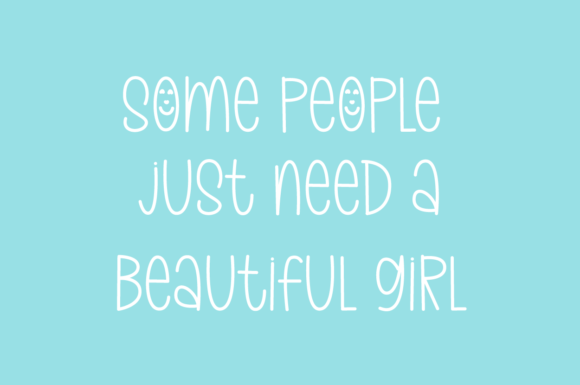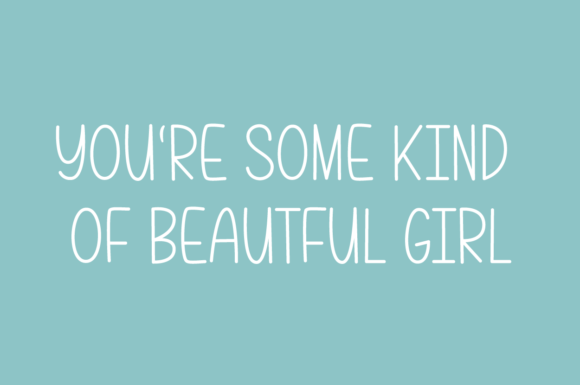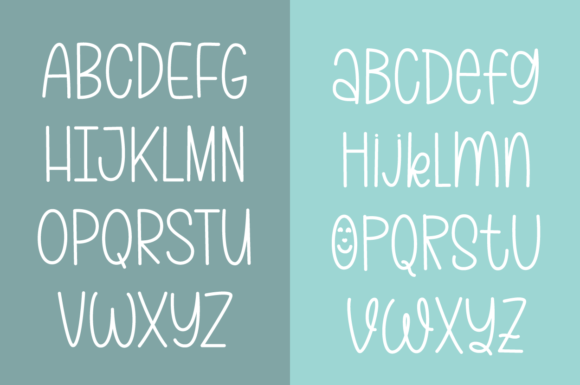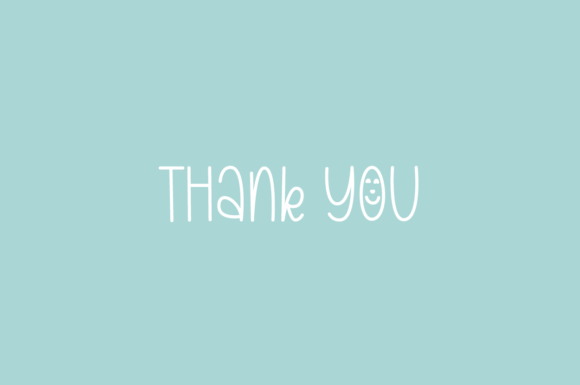
Deck the Halls with Type: Introducing the Free Holiday Font
You’re brainstorming ideas for your holiday campaign, and suddenly, a spark of creativity strikes. You envision a whimsical winter wonderland, filled with festive graphics and cheerful typography. But, what’s missing is the perfect font to bring your vision to life.
Enter the Free Holiday Font, a delightful sans serif font designed to add a touch of playfulness to your designs. Its thin letters dance across the page, creating a sense of movement and energy that’s perfect for the holiday season. This free font is a valuable asset for designers looking to add a personal touch to their projects, and its versatility makes it suitable for a wide range of applications, from social media graphics to holiday cards and invitations.
Key Features of Free Holiday Font
- Unique Characteristics: The font features a festive and playful design, with intricate details and ornaments that evoke a holiday spirit.
- Language Support: The font supports a wide range of languages, including Latin, Cyrillic, and Greek alphabets, making it suitable for international designs.
Free Holiday Font Review
Overall, I think the Free Holiday Font is a fun and festive addition to any project. It’s perfect for creating a cheerful and inviting atmosphere during the holiday season. ✨ Here are some things that work well:
- The design is playful and whimsical, making it perfect for holiday-themed projects.
- The font includes a variety of styles, including bold and italic options, to add some extra flair to your designs.
However, there are some limitations to keep in mind:
- The font may not be suitable for formal or professional projects, as it can come across as a bit too playful.
- The font may not be as versatile as some other holiday fonts on the market, as it’s specifically designed for the holiday season.
- The font may not include as many ligatures or special characters as some other fonts, which can make it a bit more difficult to use in certain situations.
- ⚠️ Be aware that some users have reported issues with the font’s legibility at smaller font sizes.
Overall, I think the Free Holiday Font is a great choice for designers who want to add a fun and festive touch to their holiday projects. While it may have some limitations, it’s a great value for the price (which is free!) and can be a lot of fun to use.
Getting the Most Out of the Font
For the best results, use the “Free Holiday Font” in bold or italic styles to add emphasis to your text.
Pair the font with festive colors and graphics to create a cohesive holiday design.
The “Free Holiday Font” is perfect for:
Creating holiday greeting cards and invitations.
Designing festive social media posts and ads.
Adding a touch of holiday cheer to business presentations and reports.